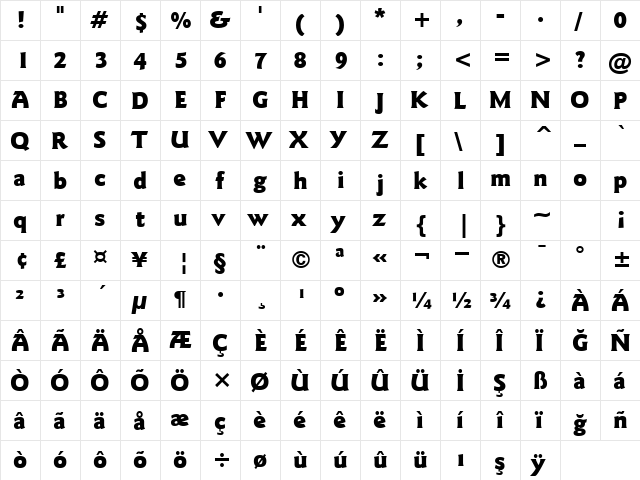
00316 Regular Font Preview
00316 Regular
00316 Regular Font Details
Design Context for 00316 Typeface
00316 is a composed and adaptable typeface that performs quietly and consistently across a wide range of design contexts.